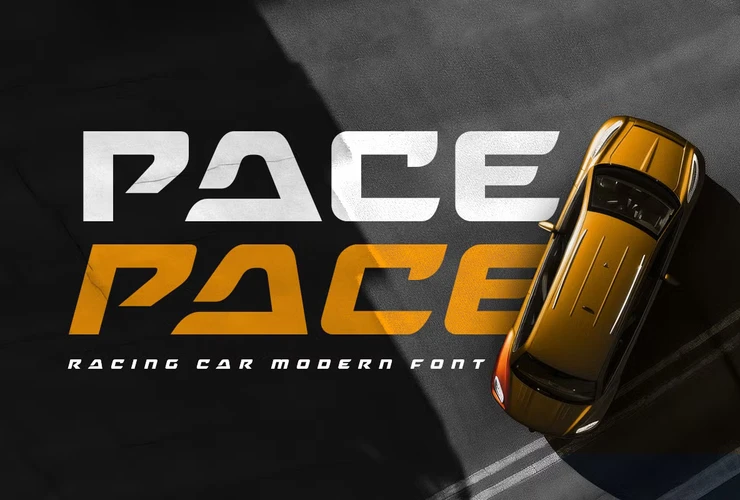
Pace: The Modern Racing Car Font That Drives Your Designs to Victory
Pace is a bold and dynamic font designed specifically for the fast-paced world of sports, technology, and action-themed projects. This modern ultra sport typeface is perfect for branding, titles, and any typography that needs to stand out with power and energy. Crafted to capture the essence of speed and motion, Pace is the ideal choice for projects that demand a sense of urgency and impact.
The Thrill of Speed in Every Character
Pace is more than just a font—it’s a statement. Its bold, action-oriented style is designed to evoke the excitement and adrenaline of racing, making it perfect for:
Branding & Logos: Create a brand identity that exudes speed and modernity.
Sport & Action Themes: Perfect for sports teams, event promotions, and action-packed headlines.
Technology & Innovation: Ideal for tech brands and projects that push the boundaries of what’s possible.
Fighting & Competitive Events: Amplify the intensity with bold typography that matches the spirit of competition.
Key Features of Pace
Creative Characters: Each character is meticulously crafted to ensure the best visual impact.
Two Versions Available: Choose between Regular and Italic versions to suit your design needs.
All Uppercase Characters: Strong and impactful letters designed to make a statement.
Inspiration Included: Preview examples to inspire your next big idea using Pace.
Pace is the go-to font for designers looking to inject energy and modernity into their work. Its sleek design and bold characteristics make it versatile enough for a wide range of applications, from sports branding to high-tech innovations. Whether you’re creating a logo, a headline, or an entire branding suite, Pace ensures that your designs will not just be seen, but felt.